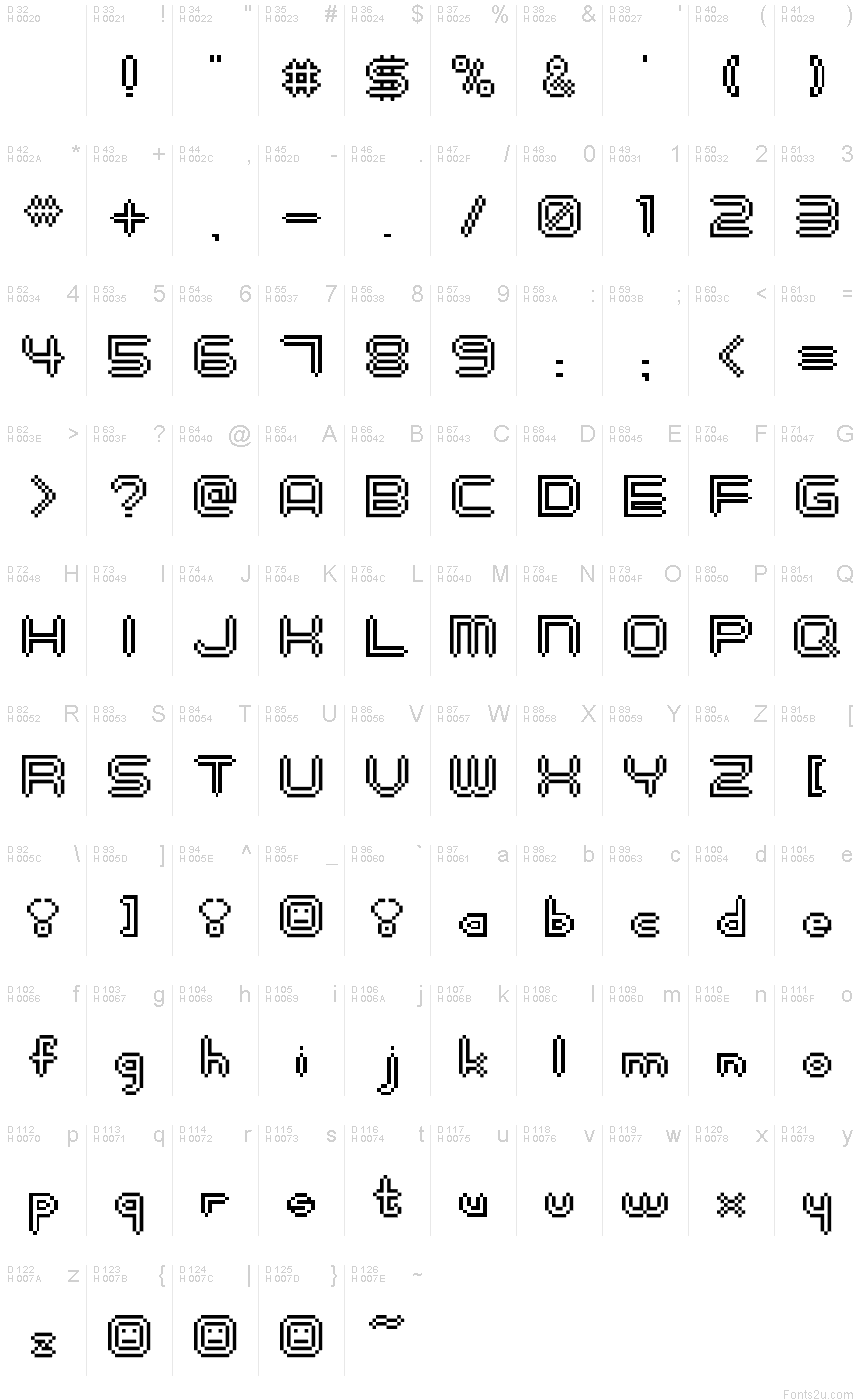
digitalisMAN
digitalisMAN font is a free pixelated bitmap typeface with a quirky, maze-like energy that instantly recalls early computer screens and 8‑bit interfaces. Each character is built from crisp square blocks and sharp right angles, giving text a modular, stacked rhythm that still reads cleanly at small sizes.
Using digitalisMAN, you can bring a retro tech feel to game titles, app interfaces, glitch art posters, event flyers, Twitch overlays, and sci‑fi zines. This free font shines when used large for logos or headlines, and pairs nicely with a simple geometric sans serif for body text to keep layouts readable while letting its pixelated character take center stage.